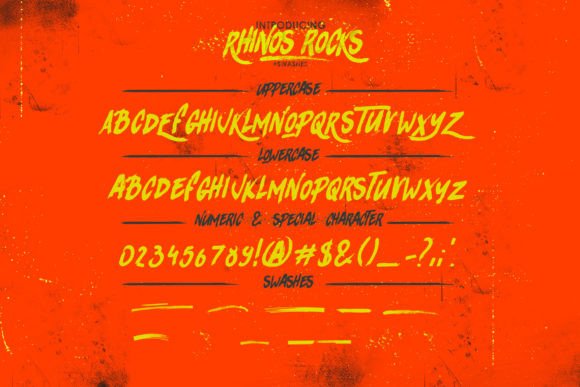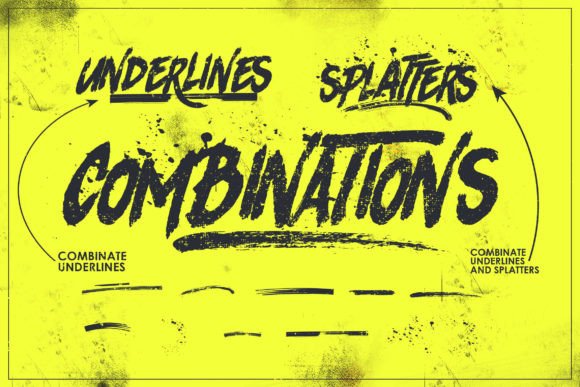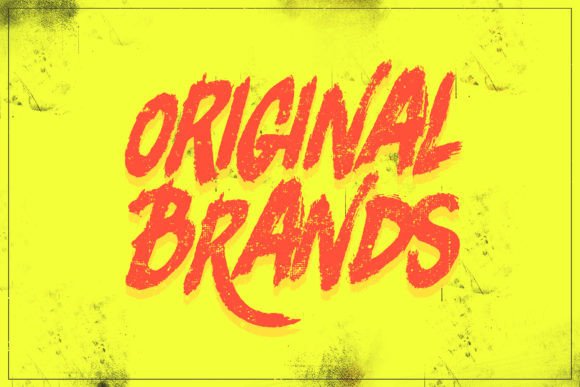
Introduction to Rhinos Rocks Font
RHINOS ROCKS is a brush font including all US glyphs and it comes in regular and slant versions.
Ideal for loud messages Made with round marker adding realistic moves in it.
Key Features of Rhinos Rocks Font
Why Choose Rhinos Rocks Font?
Rhinos Rocks Font offers exceptional quality and versatility, making it a valuable addition to your design toolkit. Whether you’re creating for personal projects or commercial use, Rhinos Rocks Font delivers professional results.